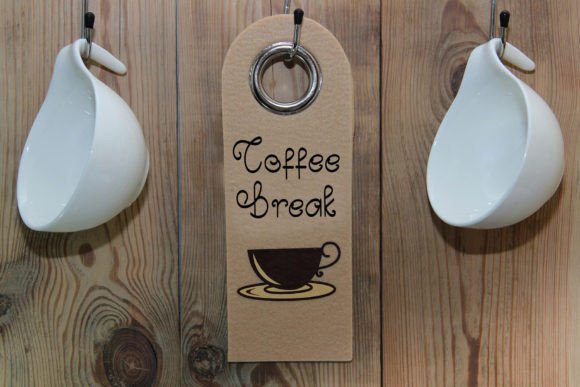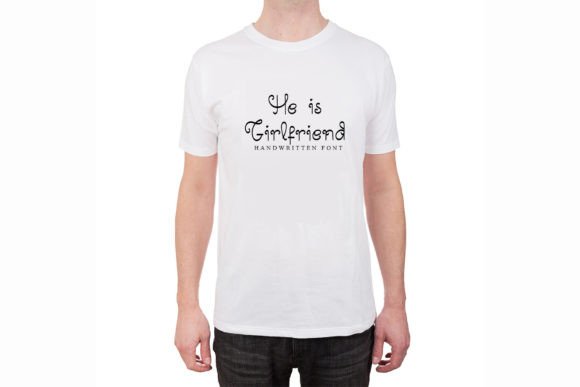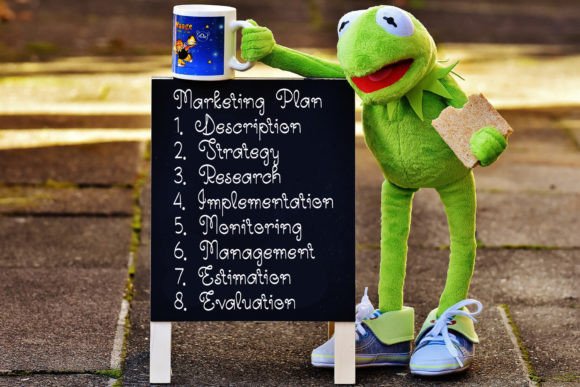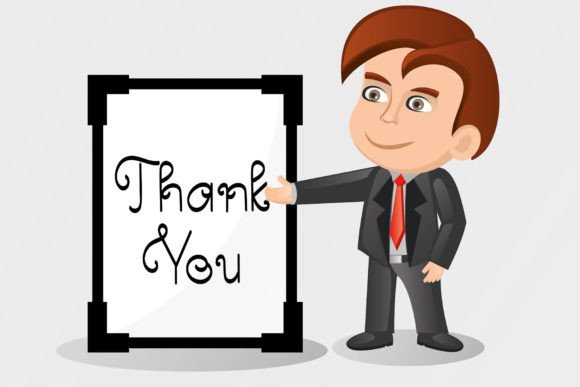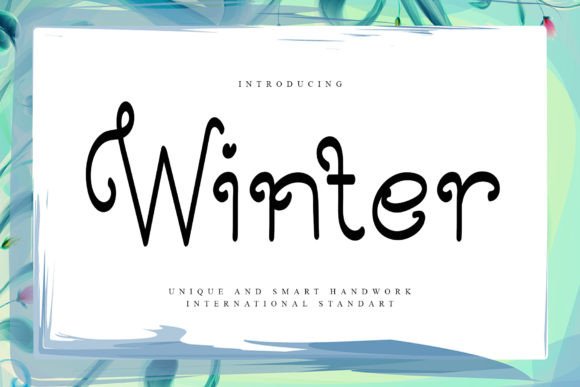
Enter Baby Happy Font Font, a unique and elegant font that adds a handwritten touch to any design. Whether it’s a wedding invitation, a billboard, or a logo, this font is sure to make your ideas shine. With its varied baseline and natural, hand-made feel, Baby Happy Font Font is a valuable tool for designers looking to add a personal touch to their work. Its PUA encoding also makes it easy to access all glyphs and swashes, giving you complete control over your design.
Baby Happy Font Font Key Features
- Font Style: Cursive, Script, and Casual
- Character Count: 300+ glyphs, including Latin, Cyrillic, and Greek alphabets
- Unique Characteristics: Hand-drawn, playful, and whimsical design, perfect for children’s books, nursery decor, and baby-related products
Baby Happy Font Review
At first glance, the Baby Happy Font appears to be a playful, whimsical font perfect for children’s products or nursery decor. ✨ The rounded edges and friendly curves do evoke a sense of innocence and joy.
However, upon closer inspection, I’ve found some limitations. ✨ The font’s simplicity may make it feel a bit too childish or immature for certain applications. The lack of versatility in terms of weight or style variations may also limit its use in more complex design projects.
Here are some specific pros and cons:
- ✨ Friendly, approachable feel
- ✨ Suitable for children’s products or nursery decor
- ⚠️ Limited versatility in terms of weight or style variations
- ⚠️ May feel too childish or immature for certain applications
Overall, the Baby Happy Font is a cute and charming font that’s perfect for specific design projects. While it may not be the most versatile font, it’s sure to bring a smile to the faces of those who use it.
Baby Happy Font Font is commonly used in:
- Children’s products and packaging.